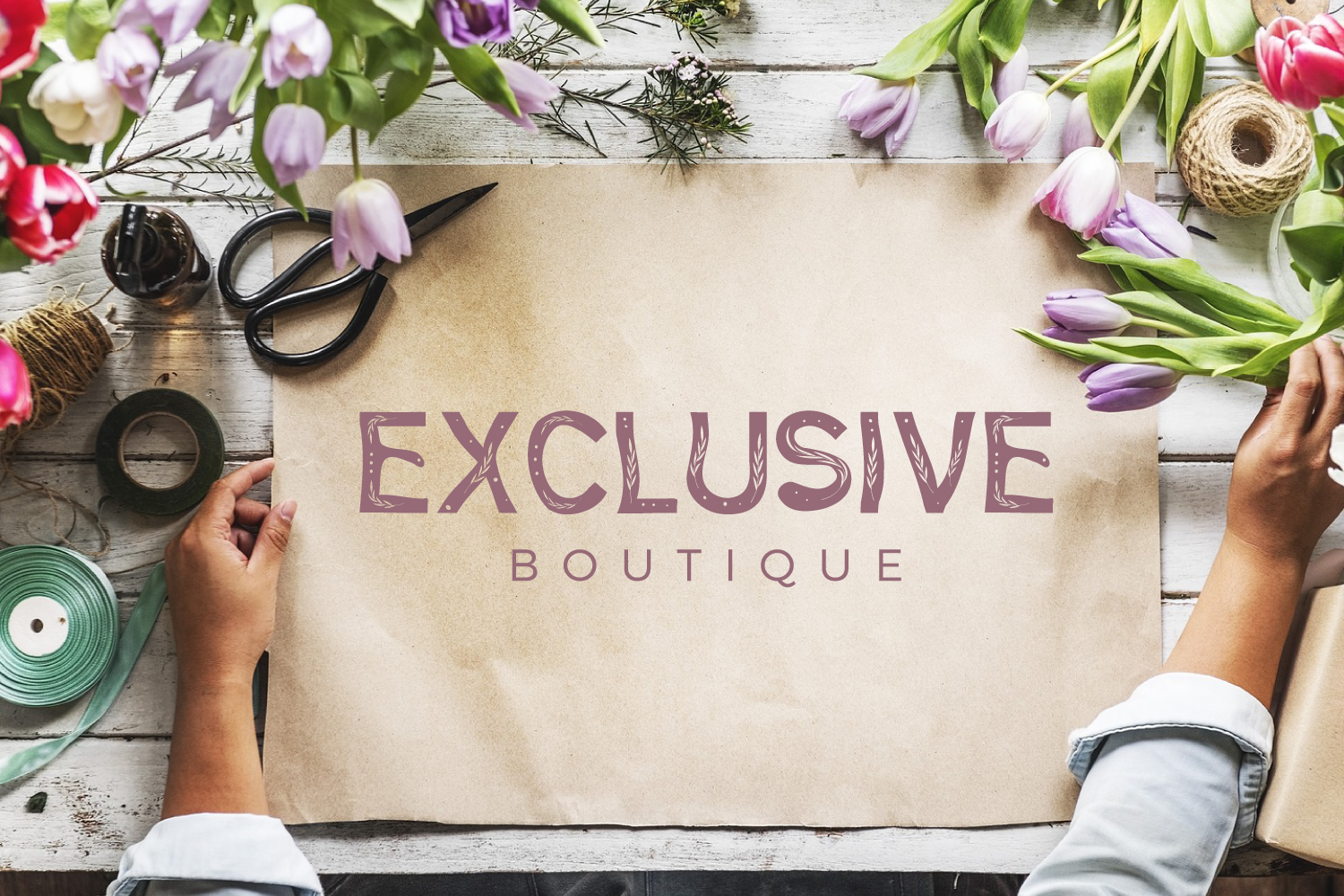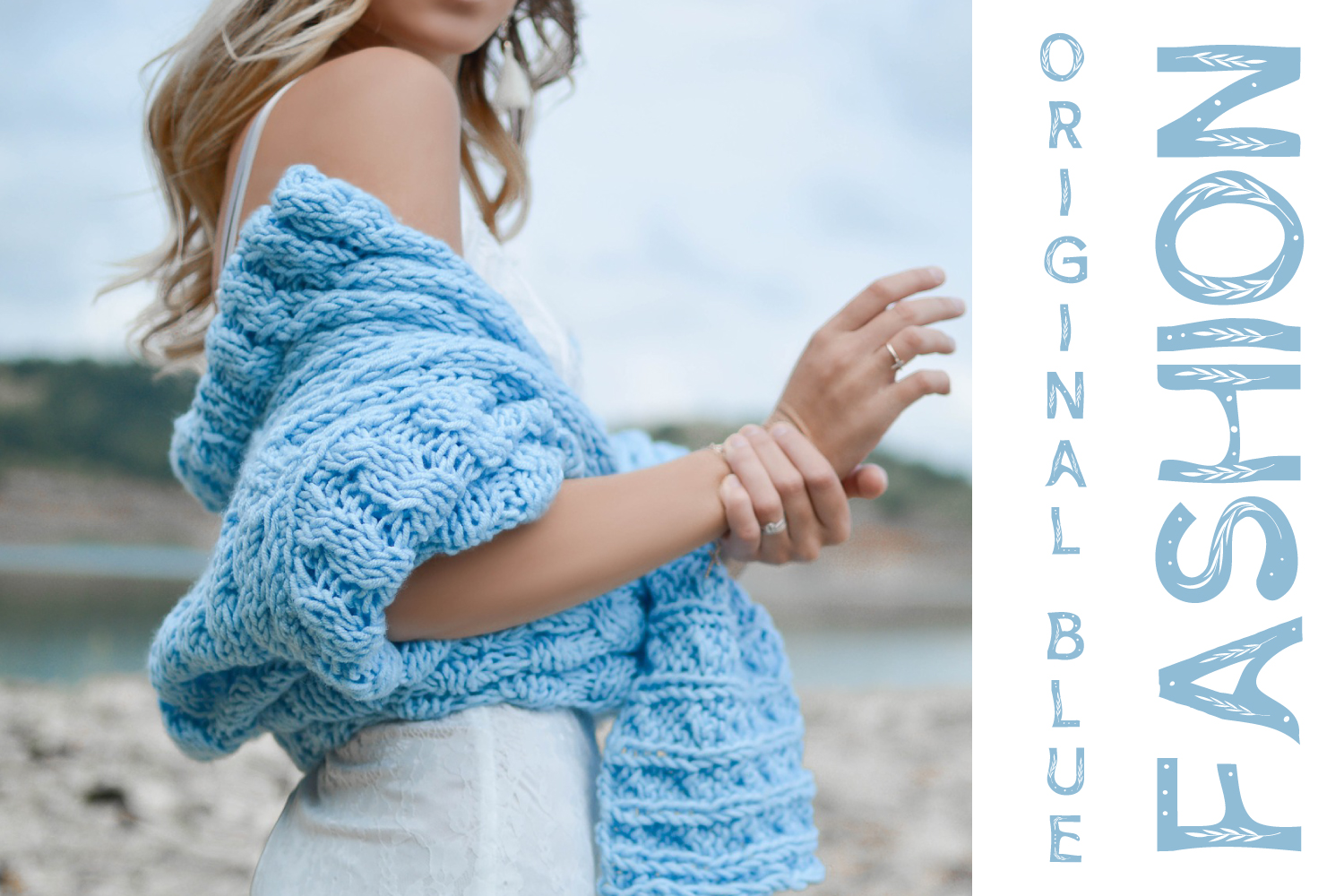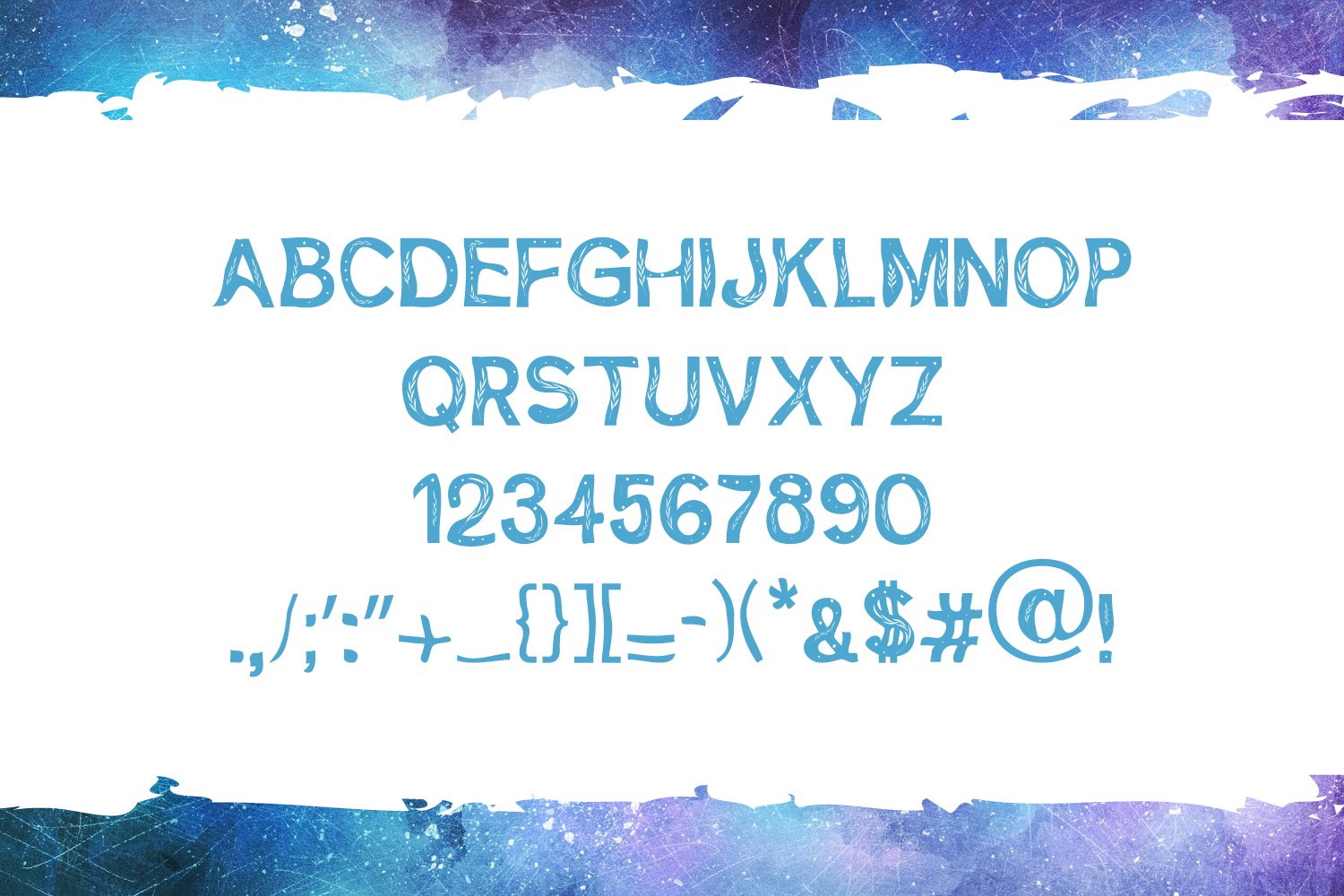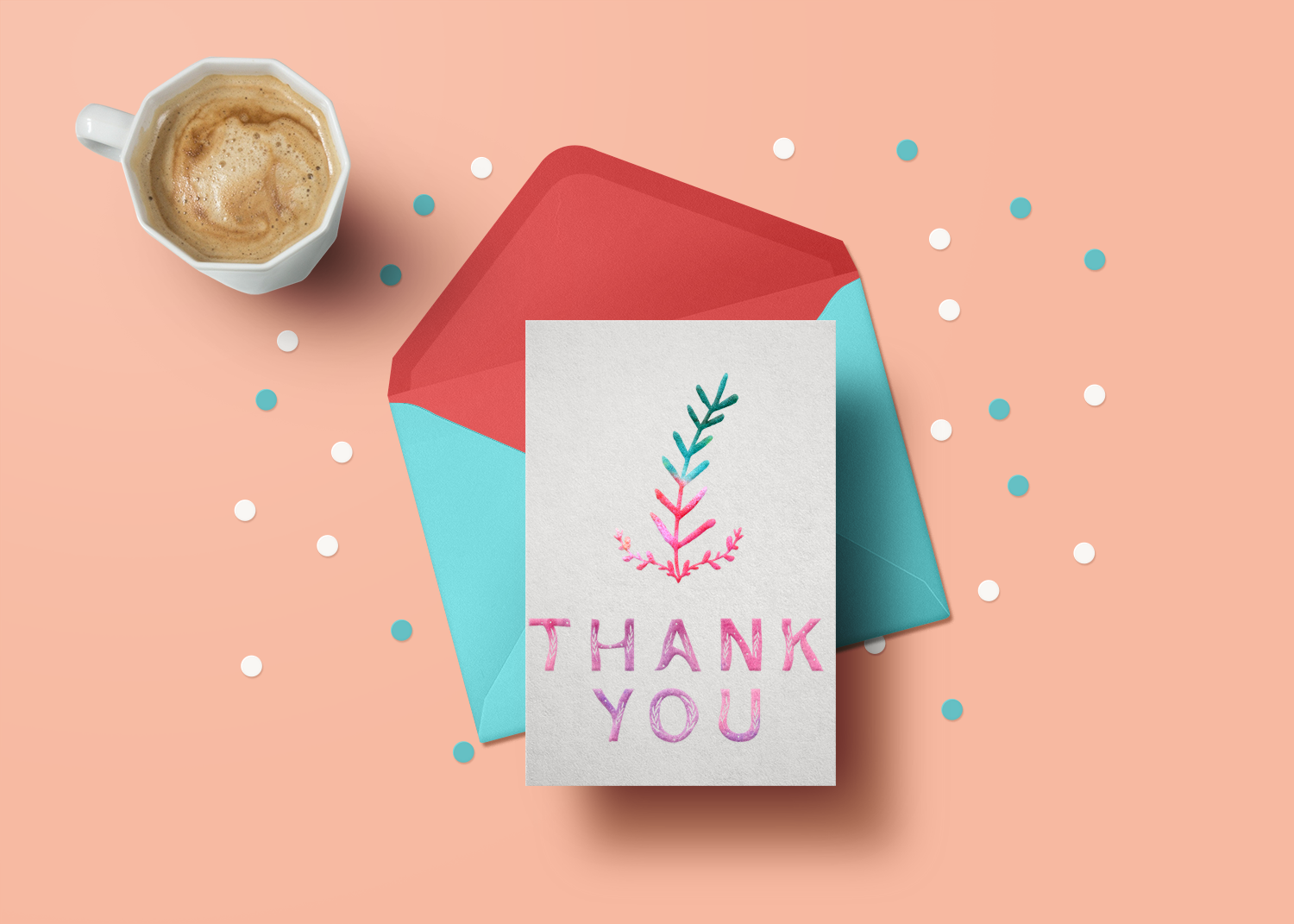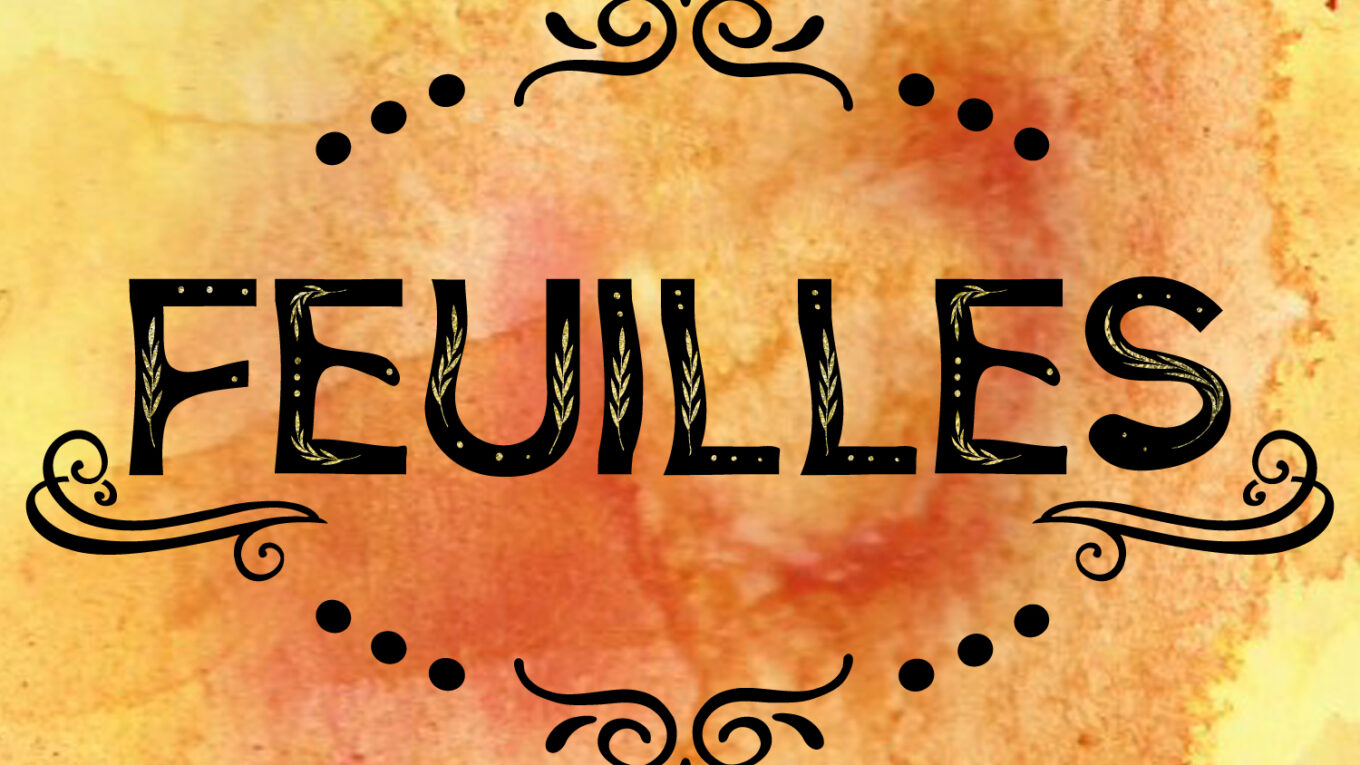
The Stunning Feuilles Font: Elevate Your Designs with Luxurious Flair
In the world of typography, few fonts manage to capture the essence of luxury and sophistication as effortlessly as the Feuilles font. This decorative serif font, adorned with intricate floral decorations, has become a favorite among designers and crafters seeking to add a touch of elegance to their projects. In this article, we’ll delve into the world of Feuilles font, exploring its unique features, uses, and benefits, as well as provide tips on how to make the most of this stunning typeface.
What is Feuilles Font?
Feuilles font is a decorative serif font that boasts an unmistakable luxurious look. Its name, which translates to “leaves” in French, is a nod to the beautiful floral decorations that embellish its letters. The font’s design is characterized by intricate details, swirling patterns, and a sense of opulence, making it perfect for projects that require a high-end feel.
Unique Features of Feuilles Font
So, what sets Feuilles font apart from other decorative fonts? Here are a few of its standout features:
- Intricate floral decorations: The font’s floral patterns and swirling details add a level of sophistication and elegance to any design.
- Serif design: The serif design of Feuilles font provides a sense of tradition and classic style, while the decorative elements give it a modern twist.
- Luxurious feel: Feuilles font exudes luxury and high-end quality, making it perfect for branding, packaging, and marketing materials.
Uses of Feuilles Font
Feuilles font is incredibly versatile, and its uses are limited only by your imagination. Here are a few ideas to get you started:
- Branding and logos: Use Feuilles font to create a luxurious brand identity that sets your business apart.
- Packaging design: Add a touch of elegance to your product packaging with Feuilles font.
- Marketing materials: Use Feuilles font to create eye-catching marketing materials, such as brochures, flyers, and posters.
- Wedding and event design: Feuilles font is perfect for wedding invitations, stationery, and other event materials.
Tips for Using Feuilles Font
To make the most of Feuilles font, follow these tips:
- Use it sparingly: Feuilles font is a statement font, so use it sparingly to avoid overwhelming your design.
- Pair it with a simple font: Pair Feuilles font with a simple, clean font to create visual interest and balance.
- Experiment with colors: Feuilles font looks stunning in metallic colors, such as gold, silver, and copper.
Benefits of Using Feuilles Font
So, why choose Feuilles font for your design projects? Here are a few benefits:
- Instant luxury feel: Feuilles font gives your designs an instant luxurious feel, perfect for high-end branding and marketing materials.
- Unique and eye-catching: Feuilles font is sure to grab attention and make your designs stand out.
- High-quality design: Feuilles font is designed with high-quality craftsmanship in mind, ensuring a professional finish.
In conclusion, Feuilles font is a stunning decorative serif font that adds a touch of luxury to any design project. With its intricate floral decorations, serif design, and luxurious feel, it’s perfect for designers and crafters seeking to create high-end branding, packaging, and marketing materials. By following our tips and using Feuilles font effectively, you’ll be able to elevate your designs and create a lasting impression on your audience.
So why not give Feuilles font a try? With its versatility, unique features, and high-quality design, it’s sure to become a favorite in your design toolkit.